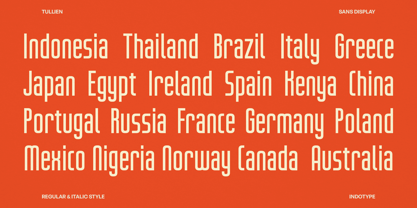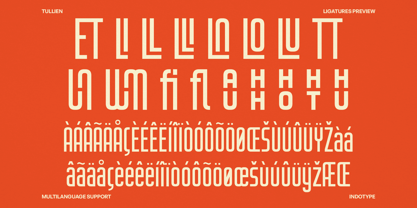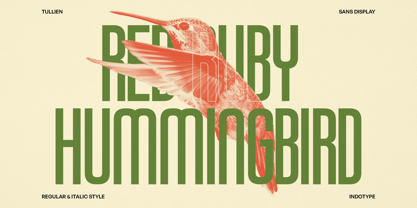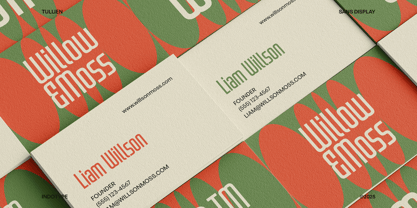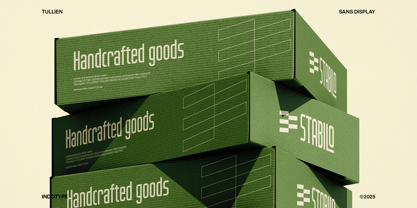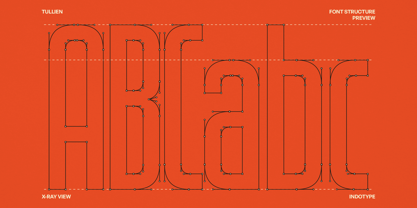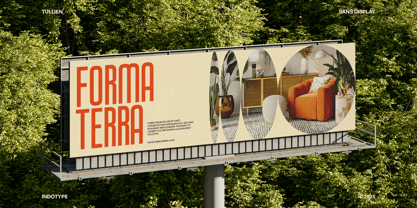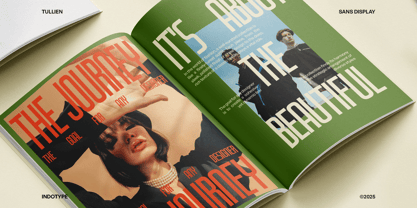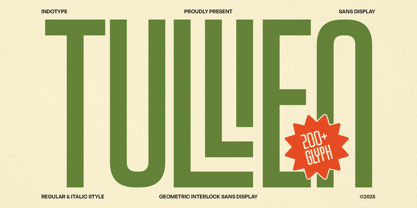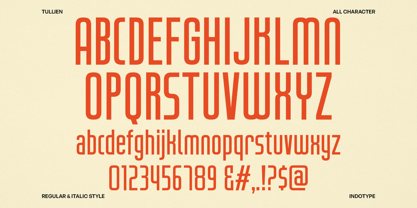
IT Tullien
von Indotype
Die Schriftfamilie IT Tullien wurde von Dede Kurniawan entworfen und von Indotype veröffentlicht. IT Tullien enthält 2 Stile und Familienpaketoptionen. Mehr über diese Familie
Tullien is a geometric interlock sans display typeface built with bold modular precision and futuristic personality. Each letter is constructed from clean verticals, tight curves, and interconnected strokes that create a sense of rhythm and symmetry — perfect for modern visual identities and experimental typography. Designed by Indotype (2025), Tullien reimagines geometric sans forms with architectural logic and interlocking letter structures, blending clarity and creativity in a single system. Its tall proportions and compact counter spaces make it strikingly strong in headlines, posters, album covers, and editorial design. With over 200 glyphs, Regular & Italic styles, and uppercase-focused precision, Tullien delivers flexibility while maintaining its bold, mechanical aesthetic. Whether you’re creating futuristic layouts or minimalist branding, Tullien brings a distinct typographic presence that feels both modernist and timeless.
Designer: Dede Kurniawan